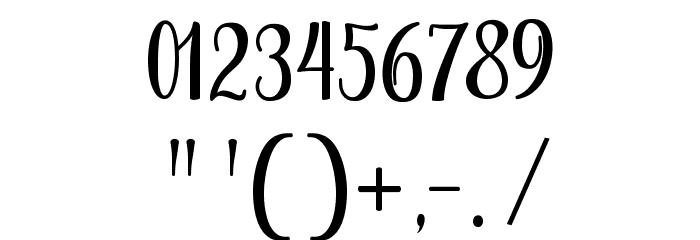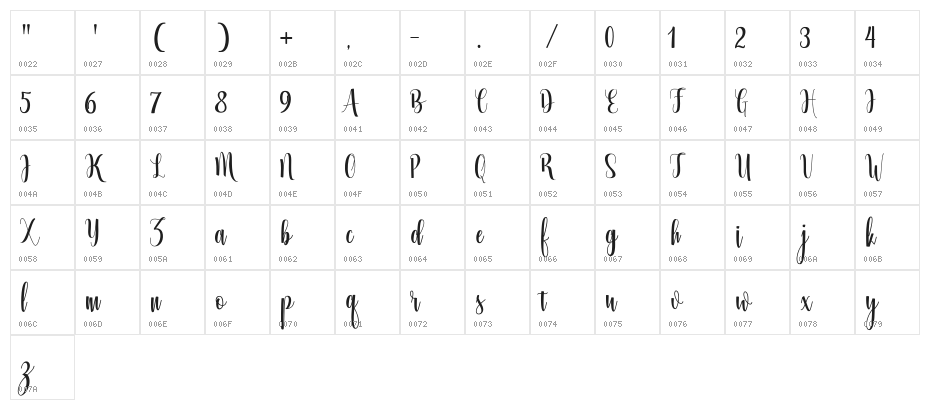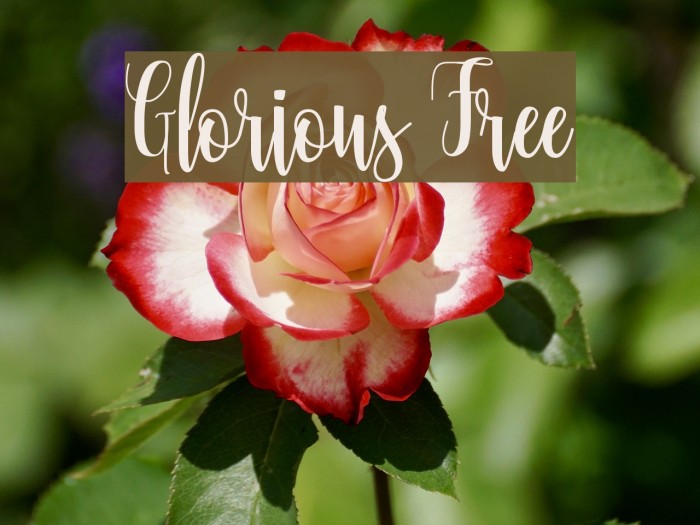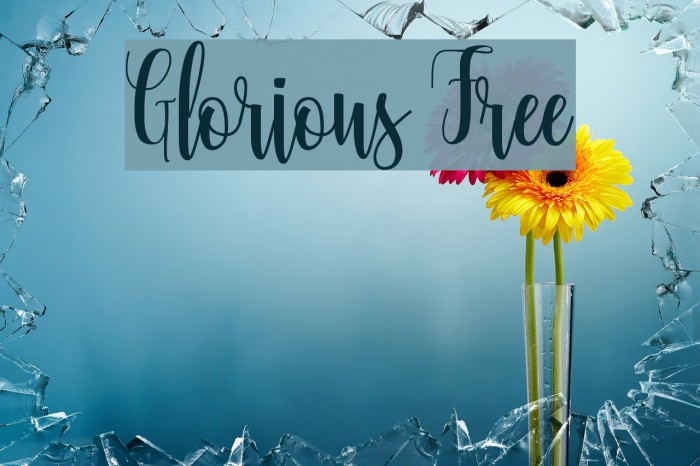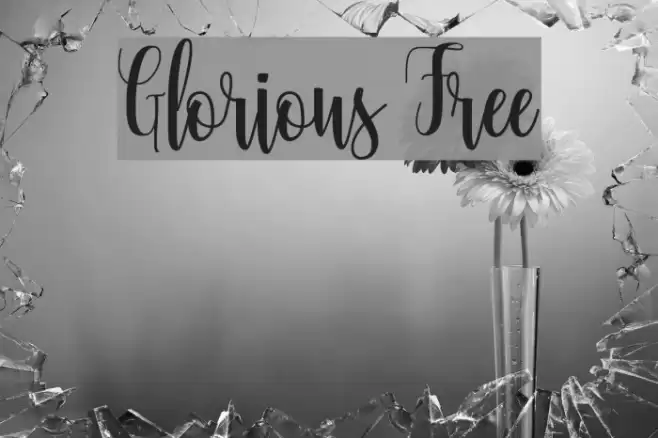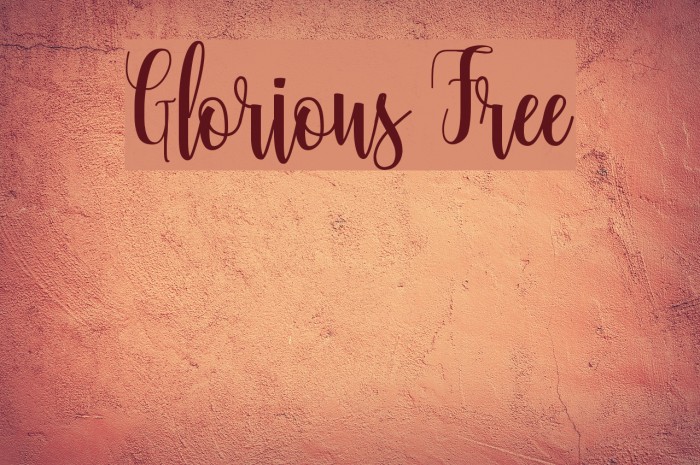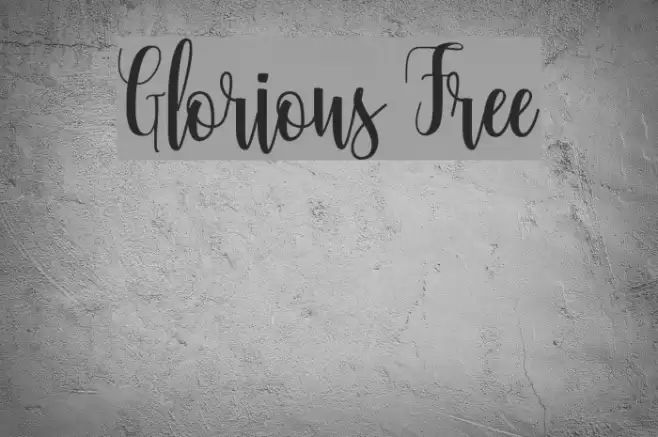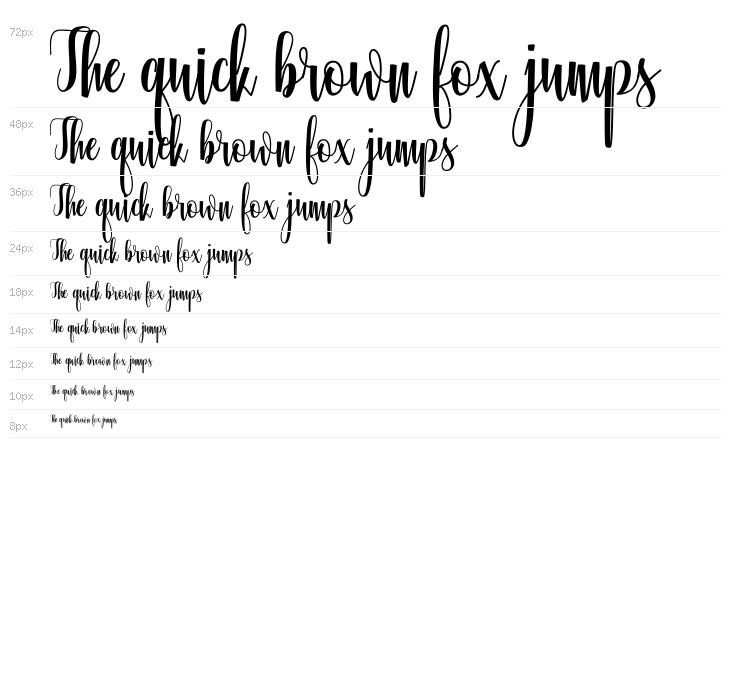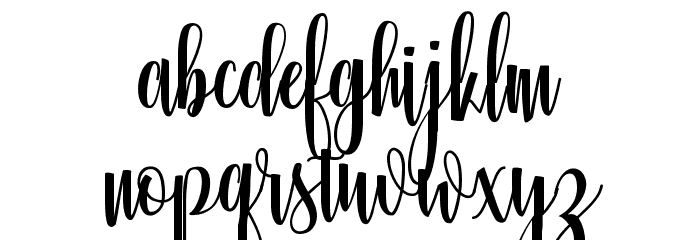
Glorious Free Font
Glorious Free Description
This font features an elegant and flowing script style, characterized by its intricate and decorative letterforms. The uppercase letters are tall and slender, with graceful loops and swirls that add a touch of sophistication. The lowercase letters maintain a consistent style, with smooth curves and a slightly condensed appearance. The numerals are distinct and complement the overall aesthetic, while the special characters are thoughtfully designed to match the font's ornate nature. This font exudes a sense of elegance and charm, making it suitable for projects that require a touch of luxury and refinement.